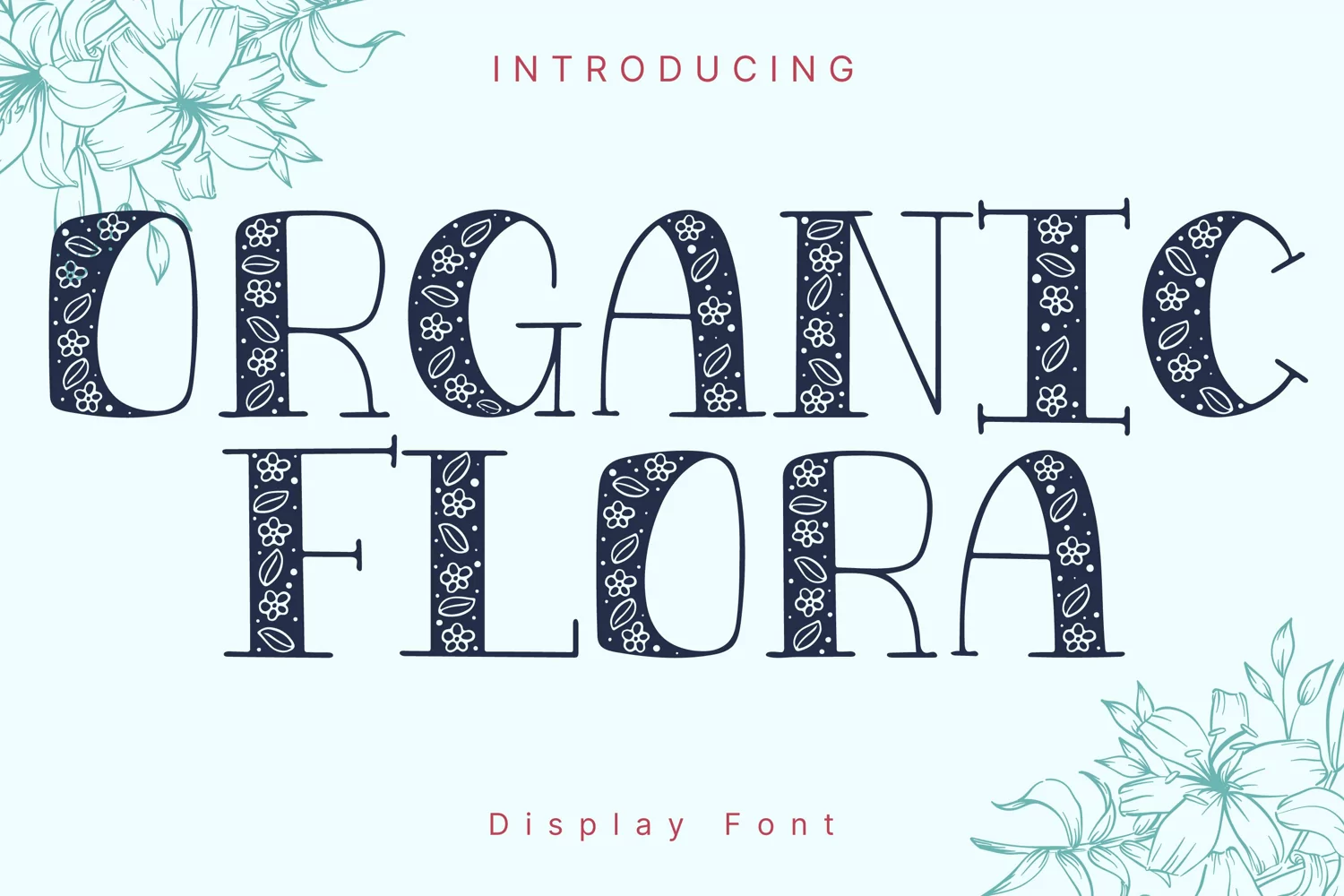
Organic Flora Style
OrganicFlora
Organic Flora Style is a whimsical and clean handwritten font. It can easily be matched to an incredibly large set of projects, so add it to your creative ideas and notice how it makes them stand out!